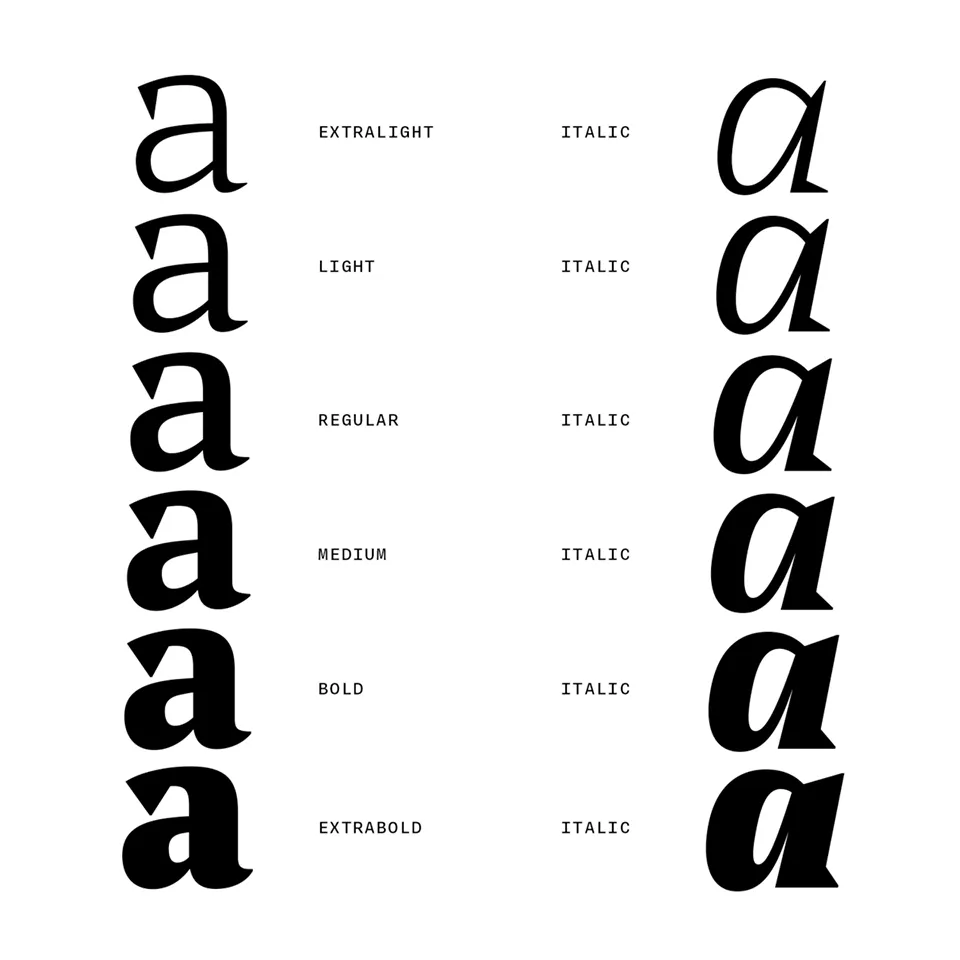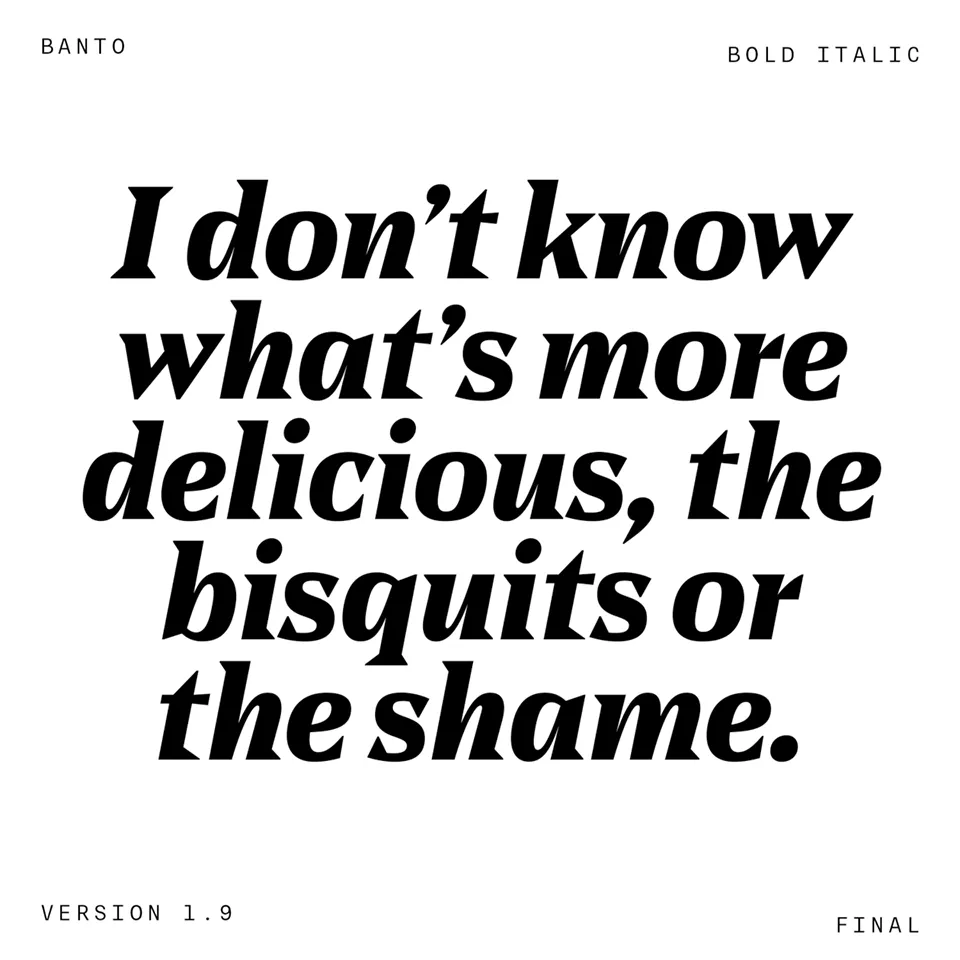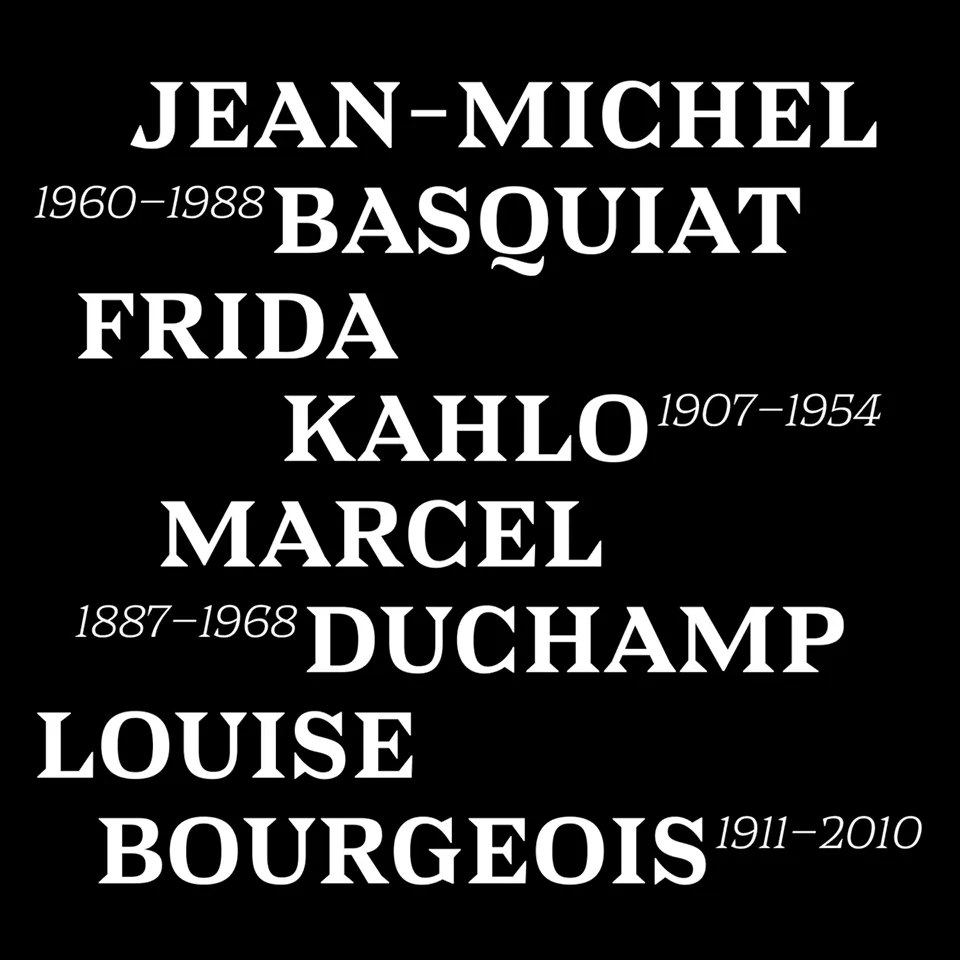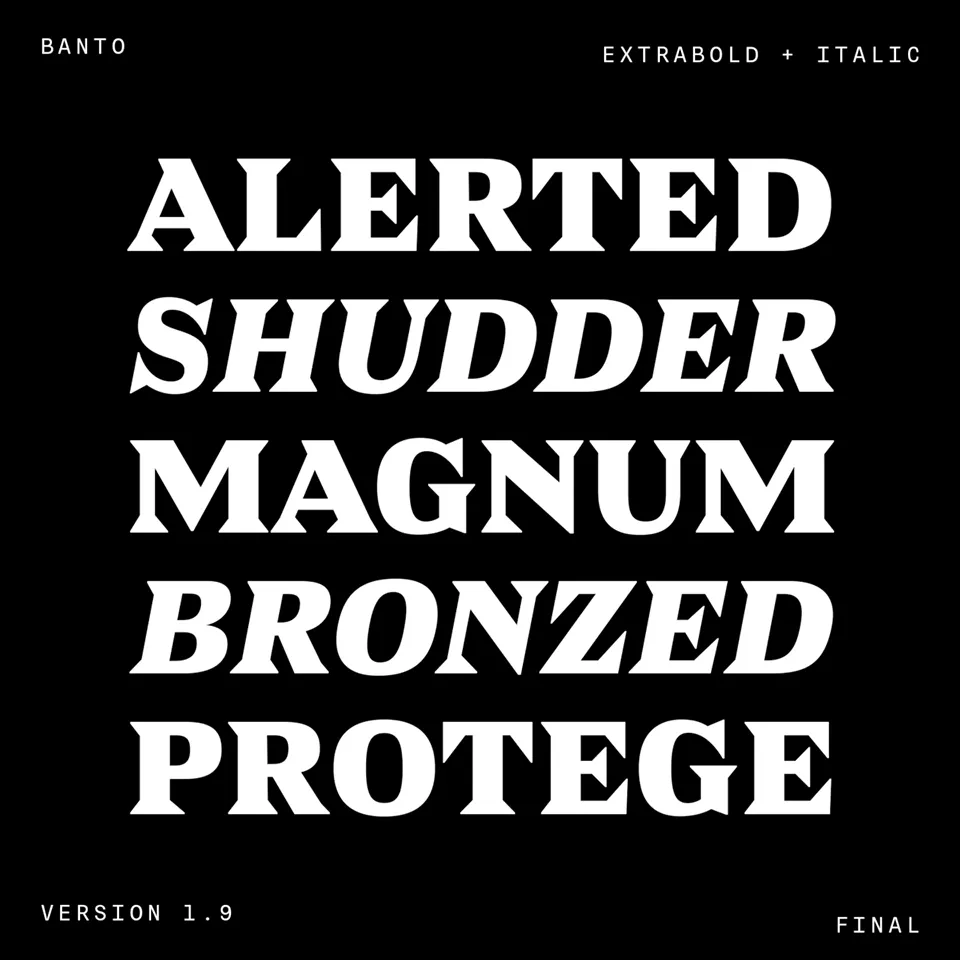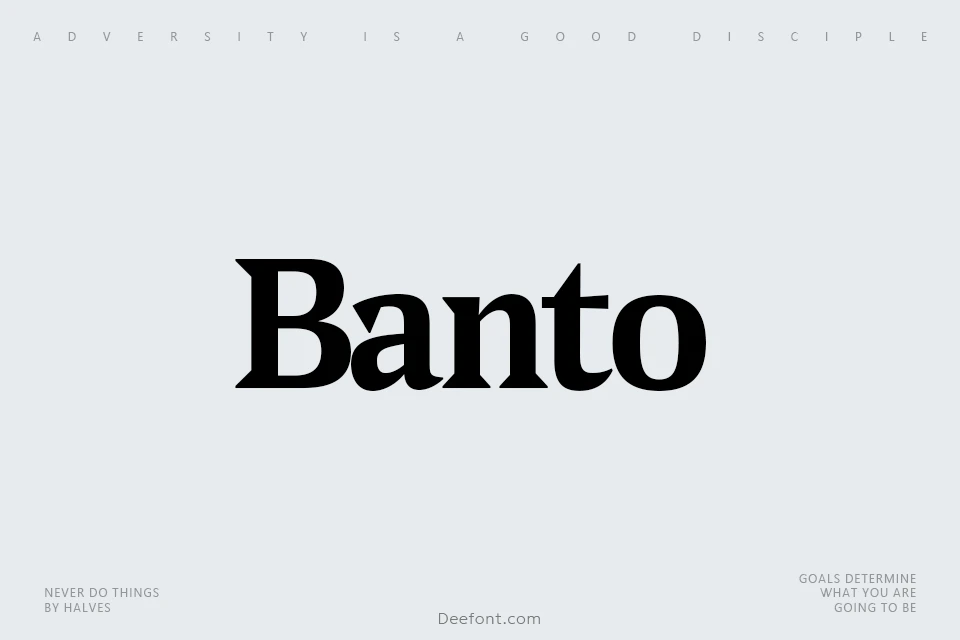
Banto Font Family
Banto Font Family is a confident serif font family characterized by large, sharp, triangular serifs and bold, unapologetic shapes. Drawing inspiration from the Latin genre, especially styles prominent in old spirits packaging like whiskey and gin labels, Banto stands out with its distinct, squarish curves and high curve tension. The typeface is designed for both display and text use, offering twelve styles from Extralight to Extrabold, each with corresponding italics. It supports extended Latin languages, features lining and old style figures, superiors, inferiors, fractions, small capitals, alternate letters, and a comprehensive set of punctuation and symbols.